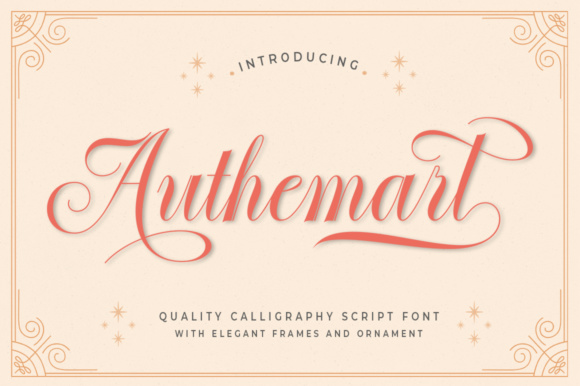
The Authemart Script Font: A Timeless Classic for Your Designs
I’ll never forget the time I was working on a project for a client who wanted a elegant, sophisticated look. I had spent hours browsing through font libraries, but nothing seemed quite right. That was when I stumbled upon Authemart Script Font. Its smooth, clean lines and feminine touch instantly caught my eye, and I knew I had found the perfect fit. In this article, I’ll share my experience with Authemart, its features, and how to make the most of this beautiful font in your designs.
An Honest Review of Authemart Script Font
What I Love About Authemart ✨
• ✅ Smooth and clean lines: Authemart’s sleek design makes it perfect for projects that require a touch of elegance.
• ✅ Feminine and glamorous: This font exudes a sense of sophistication and glamour, making it ideal for luxury brands or high-end designs.
• ✅ Modern and vintage touches: Authemart seamlessly blends modern and vintage elements, giving it a unique and timeless look.
• ✅ High-quality: The font is well-crafted, with attention to detail and a clear sense of style.
While Authemart is an excellent font, there are a few things to keep in mind:
• 🤔 Limited use in very small sizes: Due to its elegant and cursive nature, Authemart may not be the best choice for very small font sizes or body text.
• ⚠️ Some letters may require manual kerning: As with any script font, some letters may need manual kerning to achieve optimal spacing and readability.
The Backstory of Authemart Script Font
Authemart Script Font was designed with the goal of creating a timeless, elegant script font that would appeal to designers and crafters alike. The designer drew inspiration from classic calligraphy and modern typography, blending the two to create a unique and sophisticated font. With its smooth lines and feminine touch, Authemart has become a popular choice for designers looking to add a touch of elegance to their projects.
Font Name Authemart Script Font
Author Great Studio
Q: What is the best use for Authemart Script Font?
A: Authemart Script Font is perfect for designs that require a classic, elegant look, such as luxury brands, high-end designs, and creative projects.
Q: Is Authemart Script Font suitable for body text?
A: While Authemart Script Font is beautiful, it’s not ideal for body text due to its elegant and cursive nature. It’s best used for headings, titles, or short paragraphs.